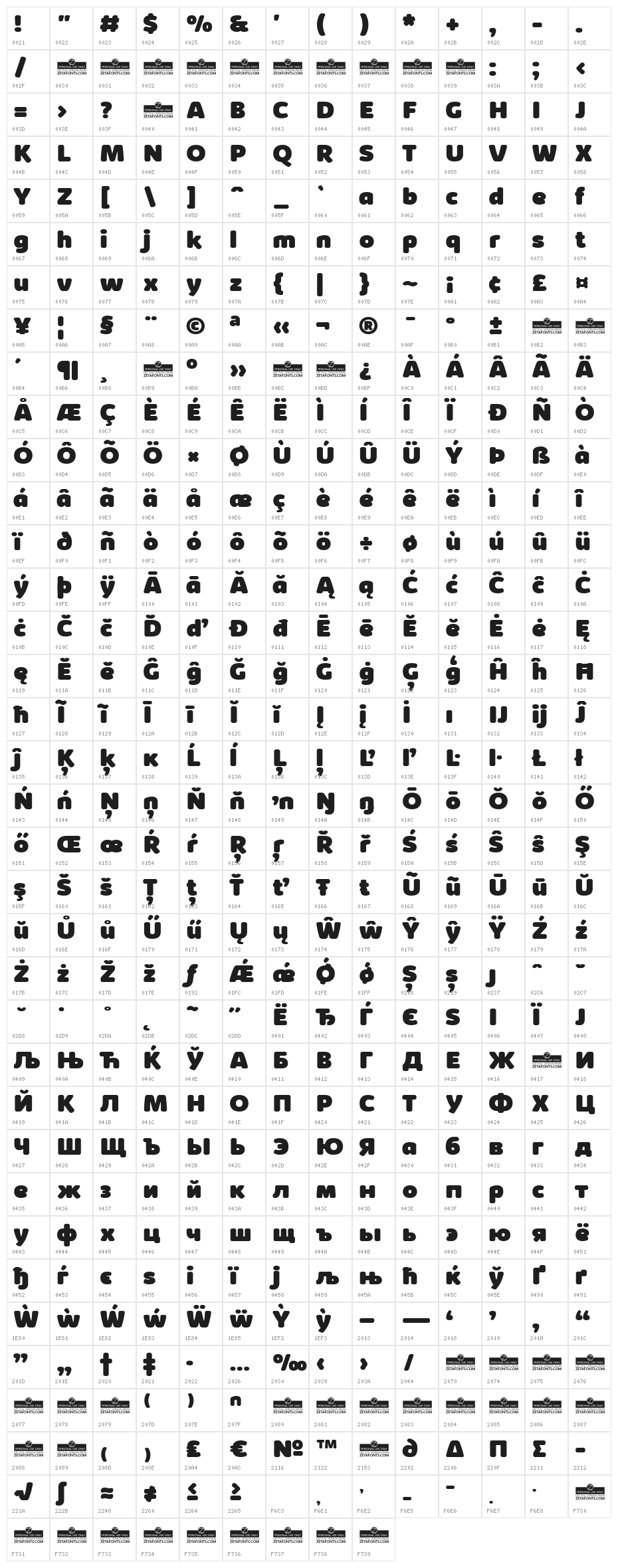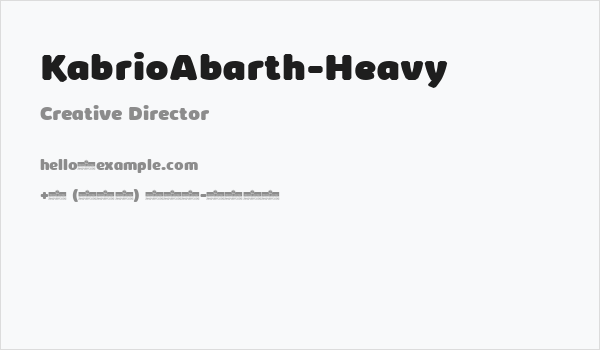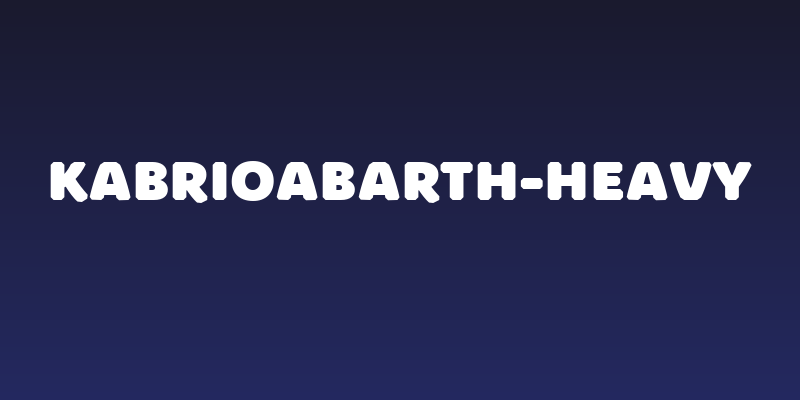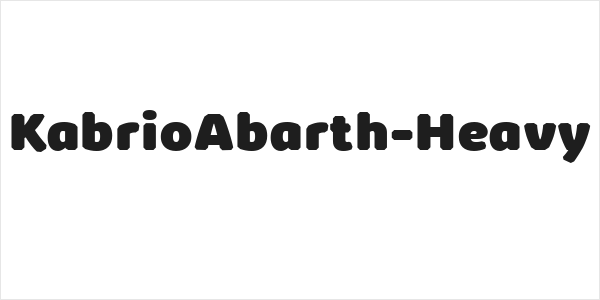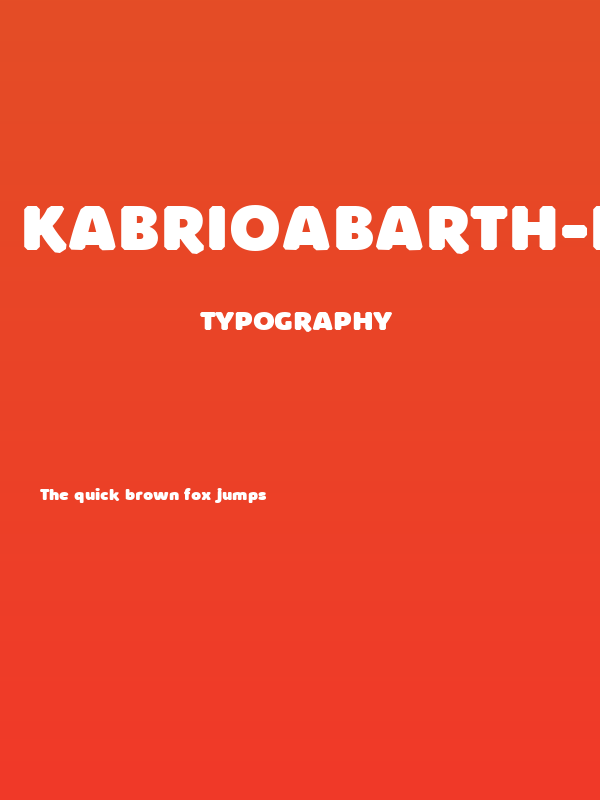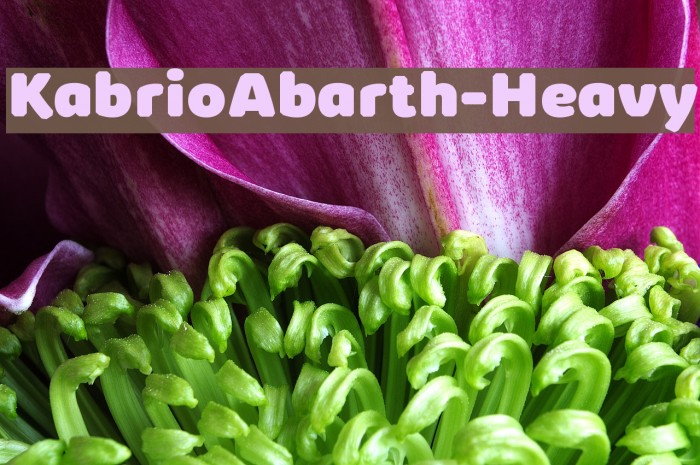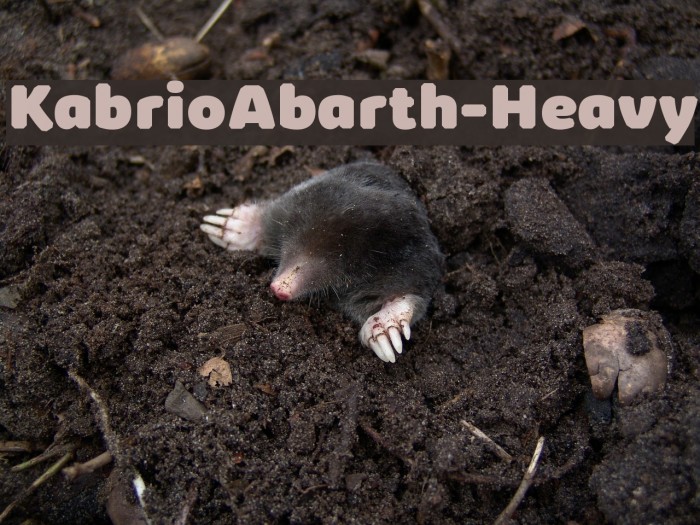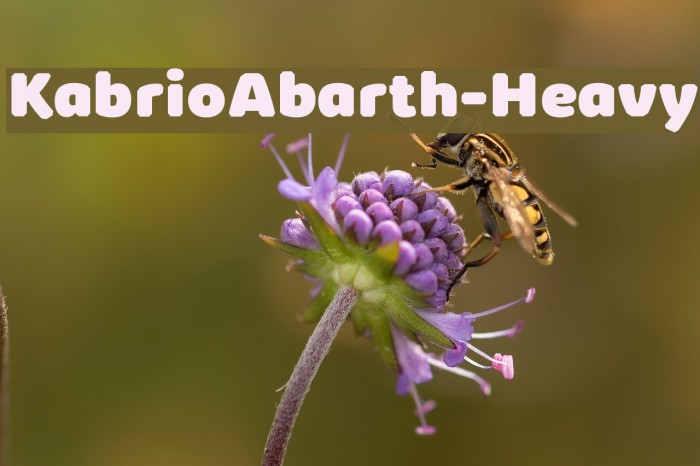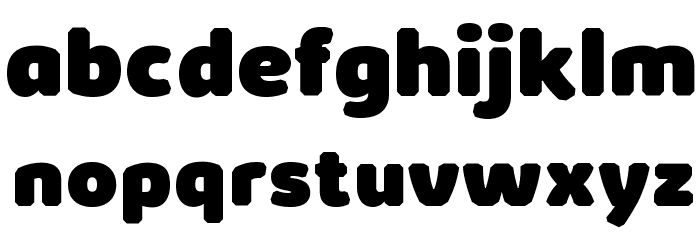
KabrioAbarth-Heavy Font
KabrioAbarth-Heavy Description
This font features bold, rounded characters with a playful and robust appearance. The uppercase letters are strong and prominent, while the lowercase letters maintain a consistent weight, enhancing readability. The numbers and special characters are designed with the same boldness, ensuring uniformity across all glyphs. The overall design is modern and approachable, making it suitable for various creative applications. The rounded edges give it a friendly and inviting feel, perfect for projects that require a touch of warmth and personality.
| Proposed Projects | Ideal for branding, children's books, posters, and playful advertising campaigns. |